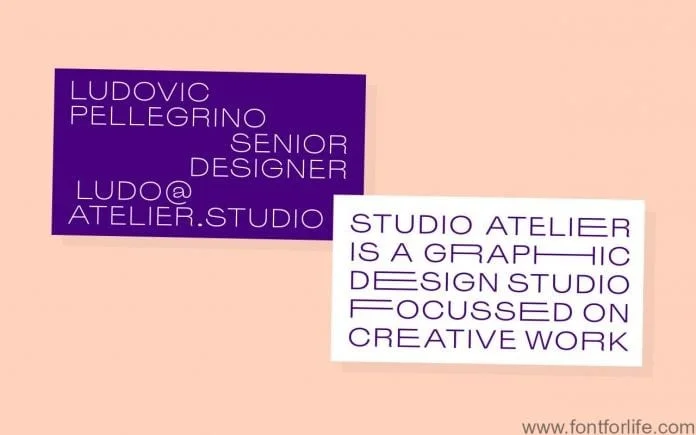
Roquefort Font Family
Roquefort Font Family is perfect for gourmet cheese packaging, French restaurant branding, artisanal food labels, fine dining menus, luxury delicatessen signage, premium culinary marketing, sophisticated wine bar logos, European bistro materials, gastronomic event promotions, and refined epicurean advertising campaigns.
Roquefort Font Family is exciting because it captures the sophisticated essence and artisanal craftsmanship of French culinary tradition through refined letterforms that evoke gourmet excellence, epicurean sophistication, and authentic French gastronomy with luxurious appeal. This exquisitely designed typeface combines French culinary heritage with contemporary functionality, making it perfect for food brands that want to communicate gourmet quality, artisanal craftsmanship, and authentic French culinary expertise.
The Roquefort Font Family includes elegant weights with French culinary-inspired character styling, featuring gourmet design elements and artisanal decorative variations. The font showcases epicurean design details, gastronomy-refined proportions, and sophisticated French characteristics that create a comprehensive typographic system for culinary and gourmet brand applications.
Roquefort Font Family Free Download provides designers with access to premium French culinary typography that brings authentic gourmet character to contemporary food industry design projects. This expertly crafted typeface has been developed to capture the sophistication and artisanal quality of French cheese-making traditions while ensuring optimal performance in luxury food marketing applications. The font's gourmet character and French appeal make it ideal for fine dining establishments and artisanal food brands.
The French sophistication of Roquefort Font Family makes it an invaluable tool for gourmet restaurants, artisanal food producers, and luxury culinary brands that need typography capable of communicating epicurean excellence and French authenticity. The font's refined character helps establish connections with food connoisseurs seeking authentic French culinary experiences and premium gastronomic adventures that celebrate traditional French culinary artistry.
Fine dining restaurants, gourmet cheese makers, and French culinary brands consistently choose Roquefort Font Family for its ability to convey French culinary sophistication and gourmet excellence through typography. The font excels in applications where establishing culinary credibility and French appeal are essential to brand positioning, making it particularly effective for gourmet foods, fine dining, and French culinary brands targeting epicurean consumers.
This font's comprehensive character set includes French-inspired letterforms, gourmet numerals, culinary punctuation marks, and epicurean symbols that support authentic French gastronomy typography composition. The consistent sophisticated styling maintains the French culinary theme throughout all characters while ensuring professional readability across all gourmet and culinary design projects requiring Roquefort Font Family Free Download functionality.